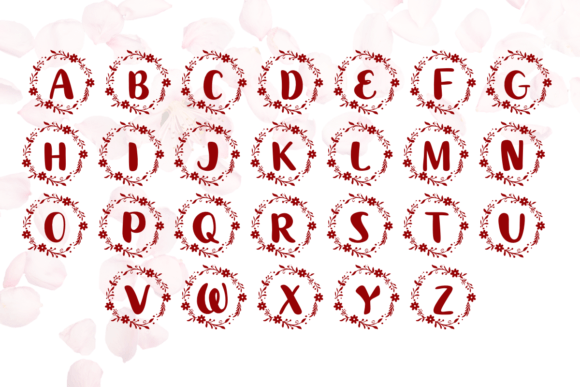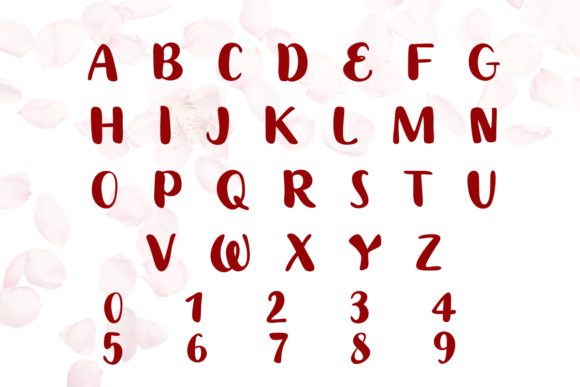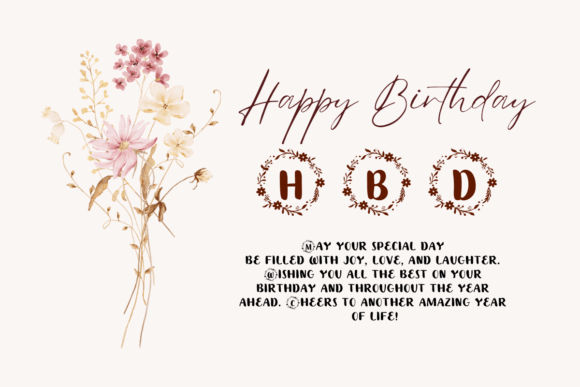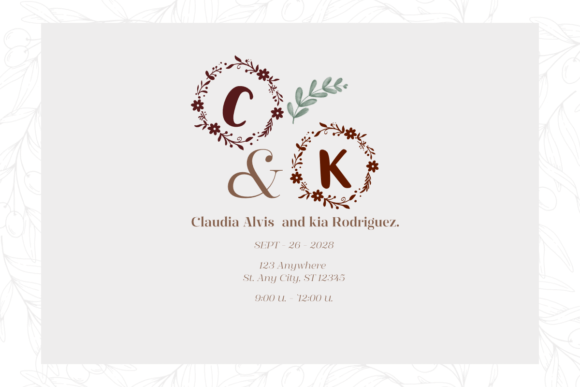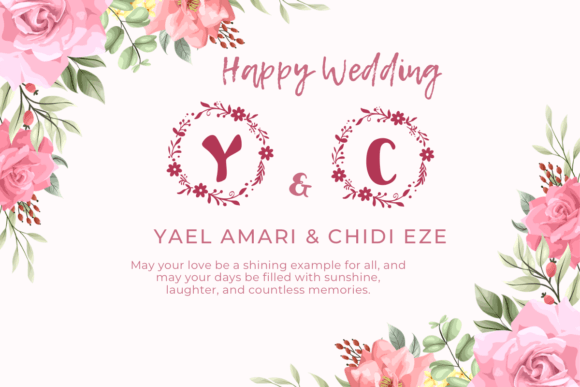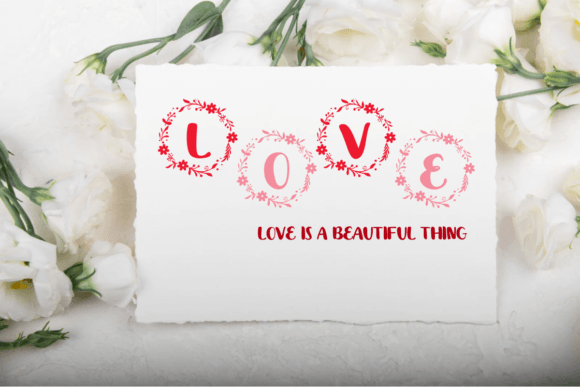
Adding a Touch of Whimsy to Your Designs
Have you ever been brainstorming ideas for a new project, only to have a burst of inspiration strike when you least expect it? For me, it’s often when I’m sipping coffee on a sunny morning, flipping through design inspiration boards, or scrolling through social media. That’s exactly what happened when I stumbled upon the Frame Spring Font – a playful, spring-themed font that instantly brightened up my day.
Frame Spring Font is a decorative font where each letter is surrounded by a charming spring-themed frame, complete with flowers, leaves, or vines. The result is a bold and eye-catching design that’s perfect for cheerful projects, from invitations to social media graphics. As a designer, I can see why this font is a valuable addition to any design toolkit – it adds a fun, fresh touch to any project and is sure to leave a lasting impression on your audience.
Key Features of Frame Spring Font
- Unique Characteristics: Frame Spring Font features a unique blend of geometric and organic elements, creating a distinctive and eye-catching visual effect.
Frame Spring Font Review
Overall, I have mixed feelings about the Frame Spring Font. It has some lovely features, but also some drawbacks that might make it less appealing to certain designers.
- The Frame Spring Font has a unique and modern aesthetic that can add a touch of sophistication to any design project.
- The font is highly customizable, with a wide range of styles and weights to choose from.
- The font’s rounded edges and subtle frame elements make it perfect for creating a sense of warmth and approachability.
- The font is also highly legible, even at small font sizes.
- The Frame Spring Font can feel a bit too playful or juvenile for certain design projects, particularly those that require a more serious or formal tone.
- The font’s customization options can also make it feel a bit overwhelming or over-styled.
- The font’s rounded edges can sometimes make it difficult to read, particularly in certain lighting conditions.
While the Frame Spring Font has some great features, it’s not a one-size-fits-all solution. I would recommend it for designers who are looking for a modern, approachable font for projects that require a bit of whimsy or personality. However, for more serious or formal projects, I might suggest looking elsewhere.
Tips for Getting the Most Out of Frame Spring Font
For the best results, use Frame Spring Font in conjunction with other design elements that complement its unique style. Experiment with different font sizes, colors, and styles to create a visually appealing design.
Frame Spring Font is ideal for creative and artistic designs, such as invitations, posters, and social media graphics. It’s also suitable for use in branding and logo design, particularly for companies that want to convey a sense of playfulness and creativity.